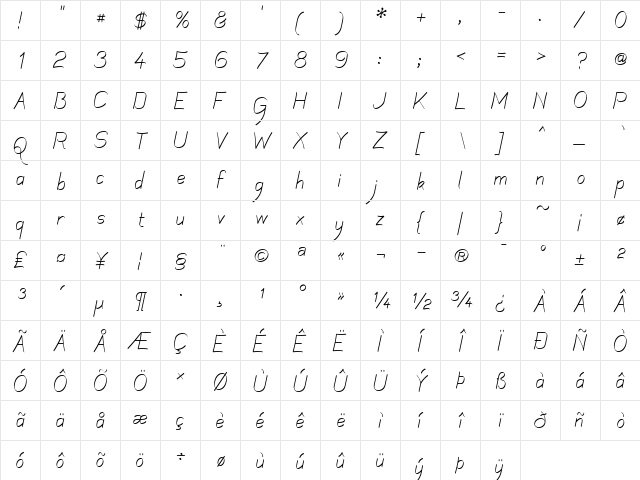
Mechanihan Ribbon Italic
| Designer | Graham Meade |
Design Context for Mechanihan Ribbon Typeface
Mechanihan Ribbon is a composed and adaptable typeface that performs quietly and consistently across a wide range of design contexts. Its italic angle brings a sense of urgency and motion to the letterforms.
Pro Tip: Try Mechanihan Ribbon for annotation and caption copy alongside an upright companion — the contrast in angle creates a dynamic but ordered typographic system.